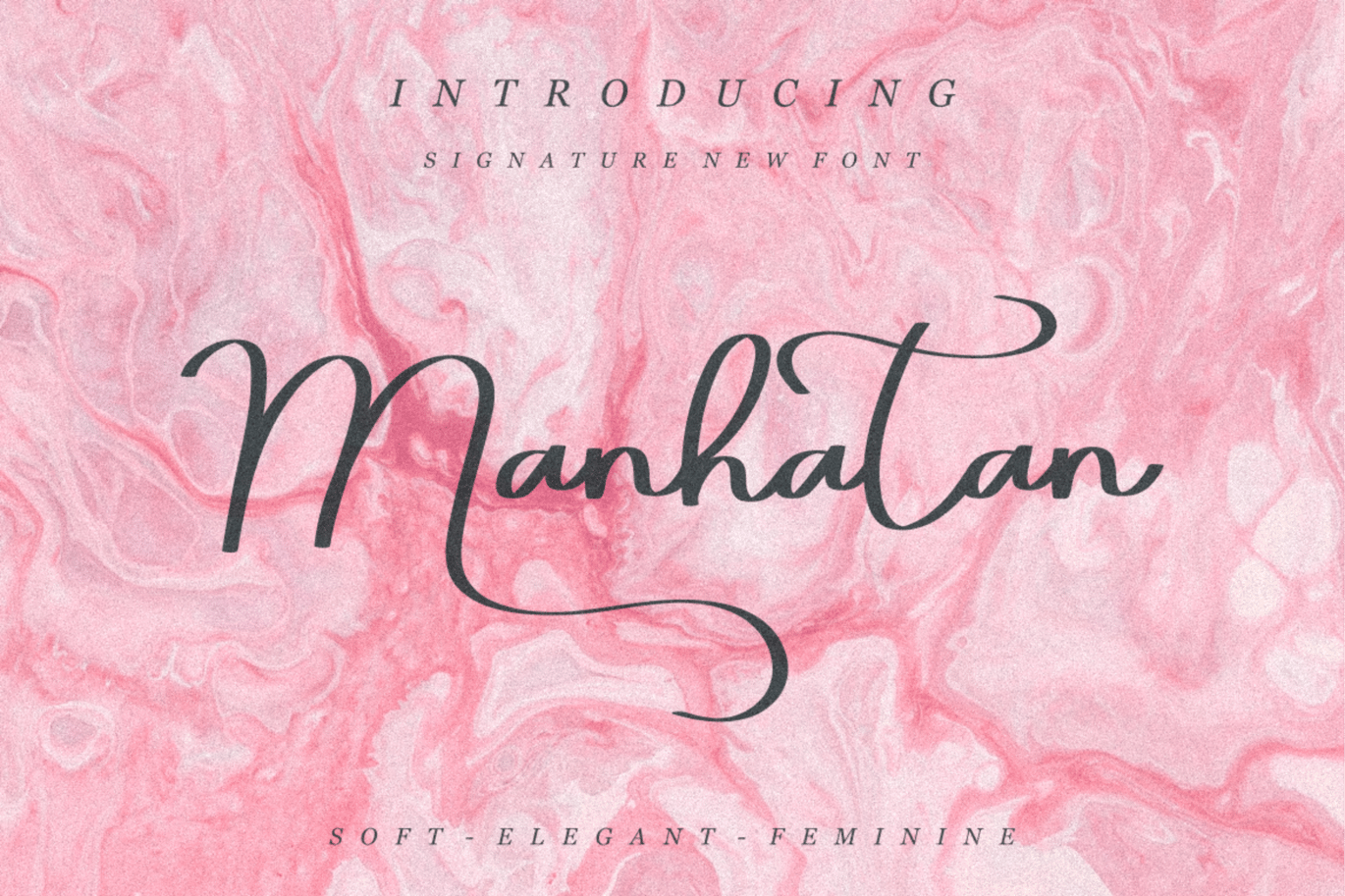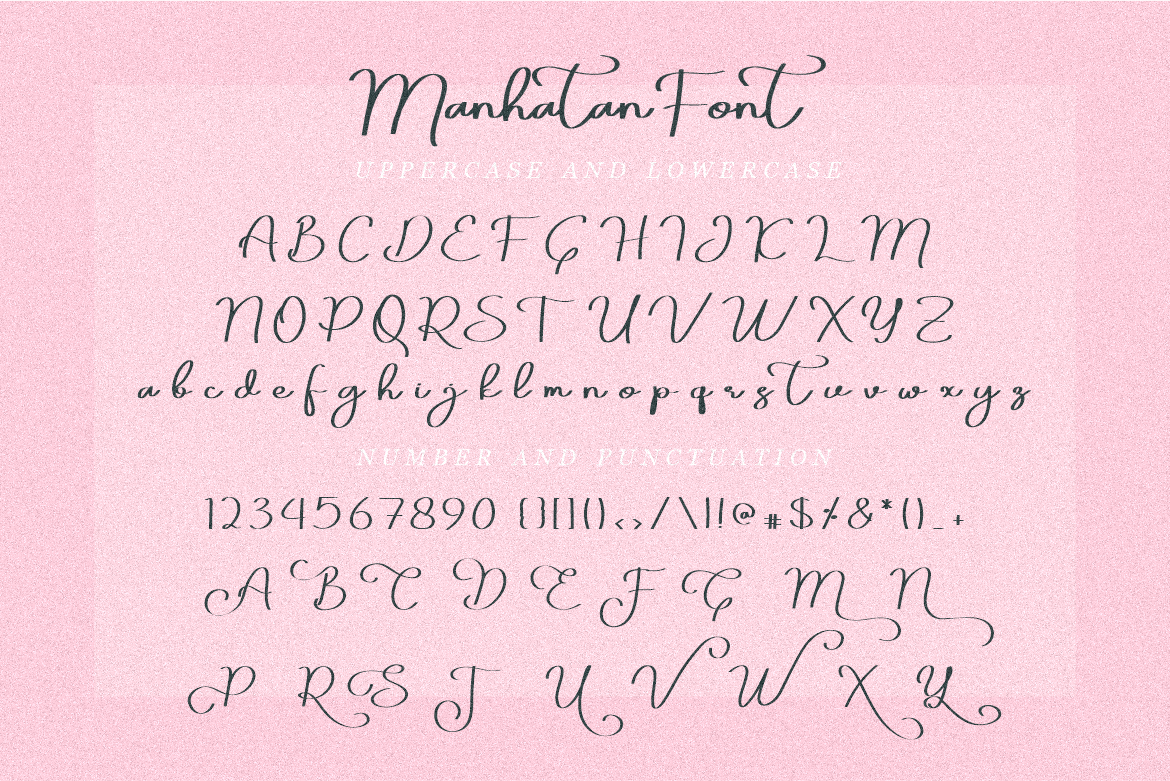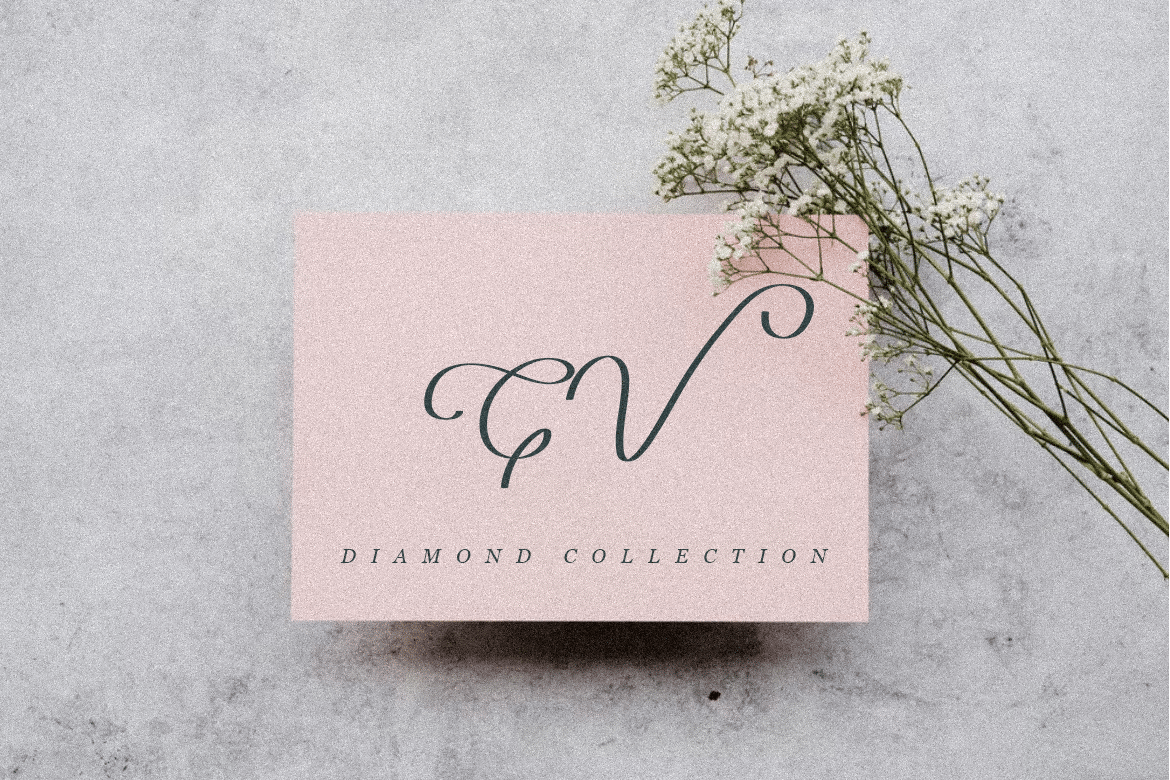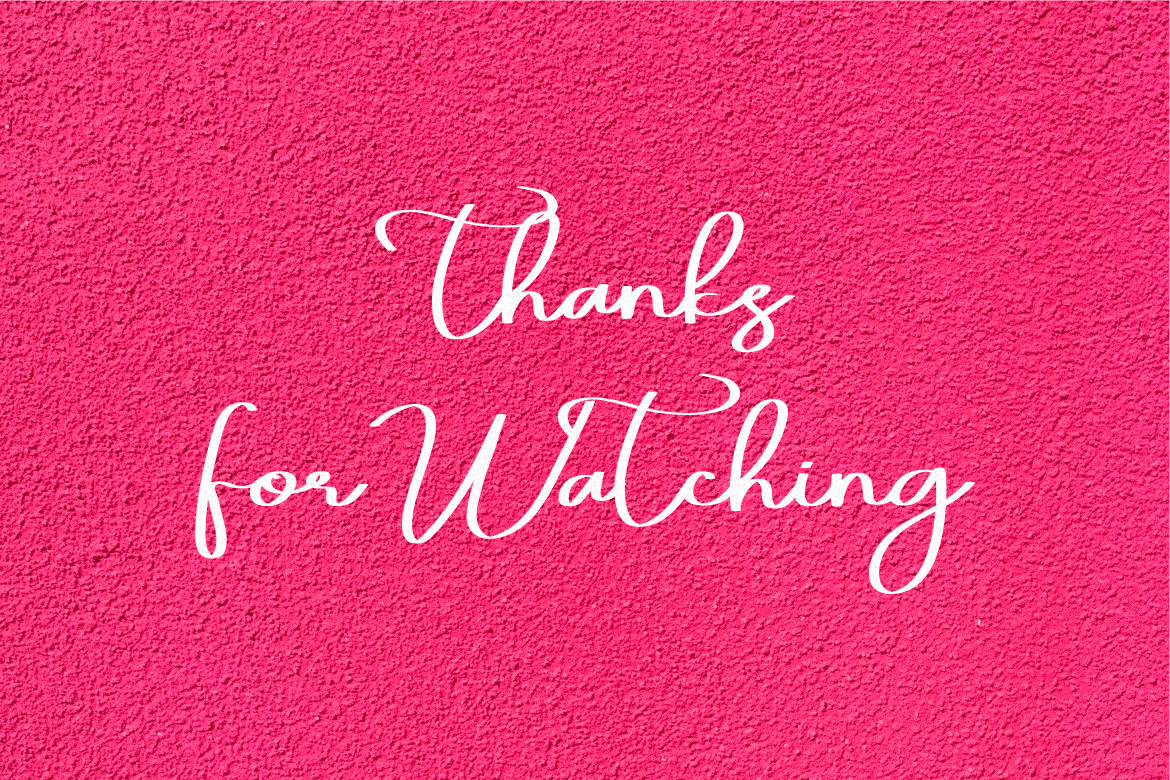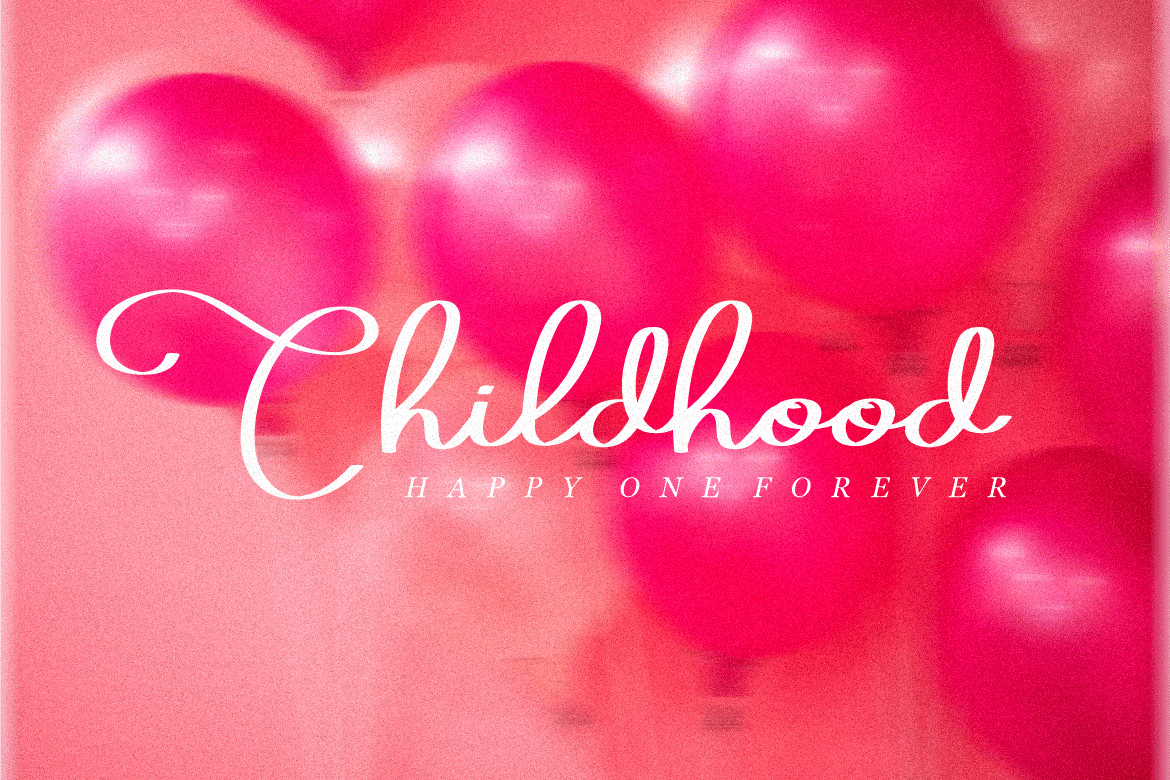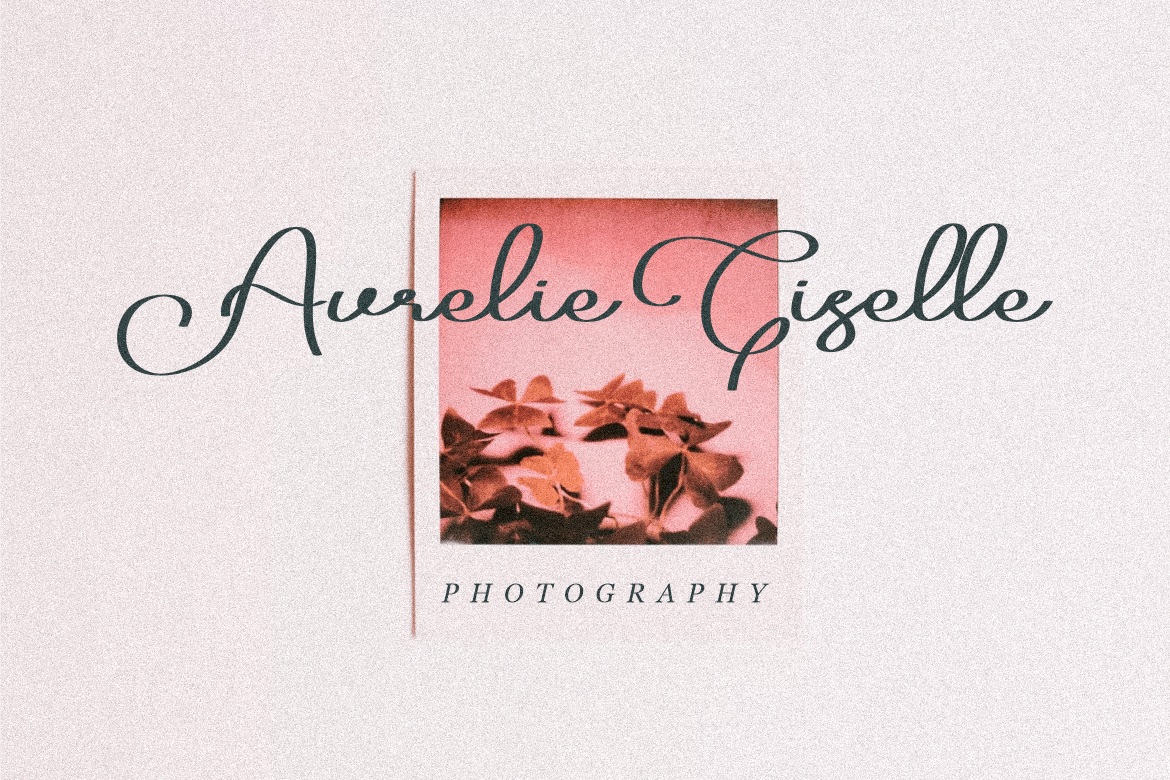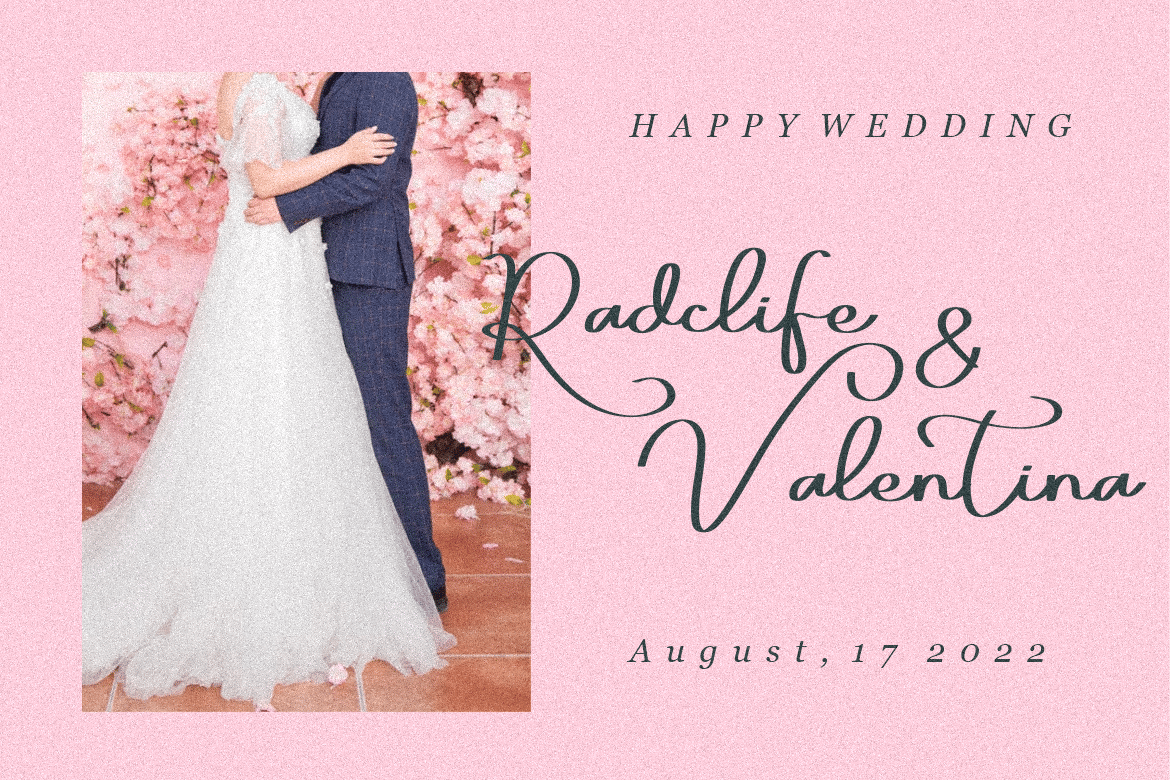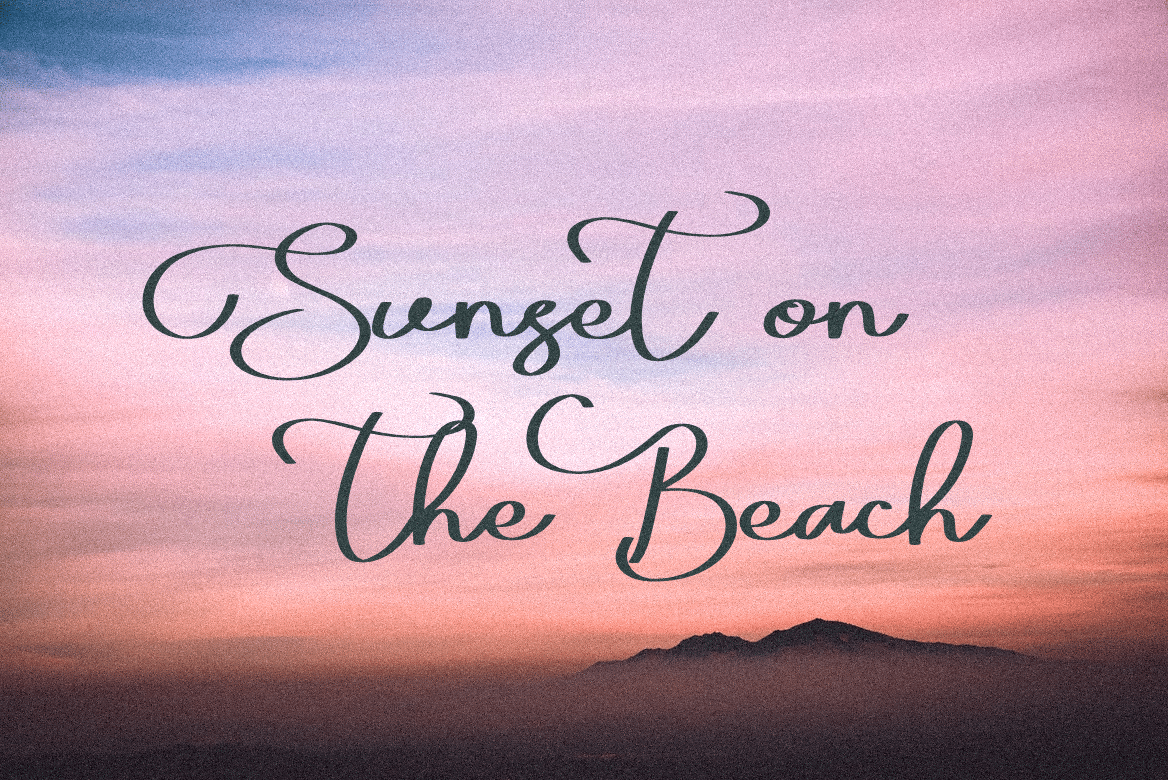
Manhatan Signature FOnt
Introducing New Font _ a fashionable and elegant handwriting script font. Come up with Standard uppercase ,lowercase, numerals and punctuation. Also included lowercase Alternates character, standards ligatures, and swashes.
Perfectly for handwritten quotes, signature-style logos, invitation, stylish branding projects, and hand-crafted product & stationery designs.